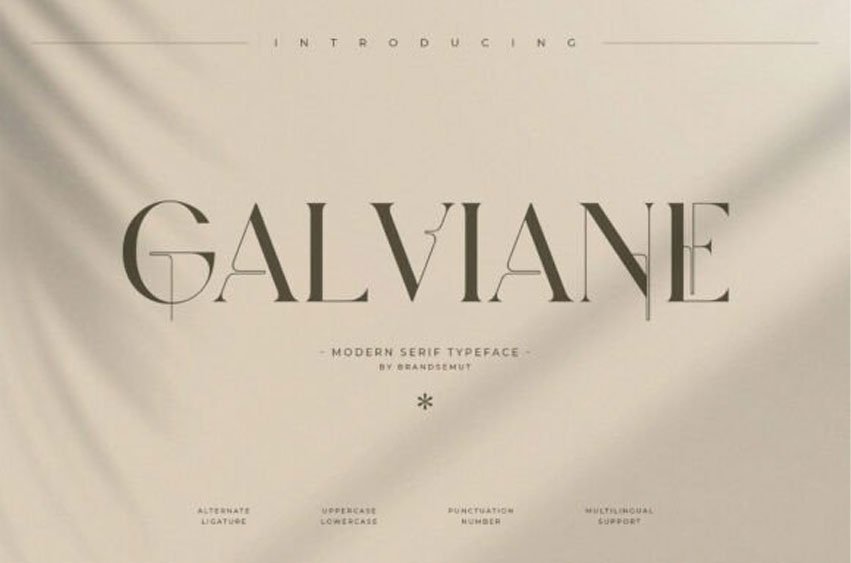
Galviane Font is a high-fashion modern serif typeface that blends elegant structure with creative expression.
Featuring full uppercase and lowercase characters, along with sophisticated alternates and ligatures, Galviane is perfect for bold editorial design, stylish branding, and high-end print layouts.